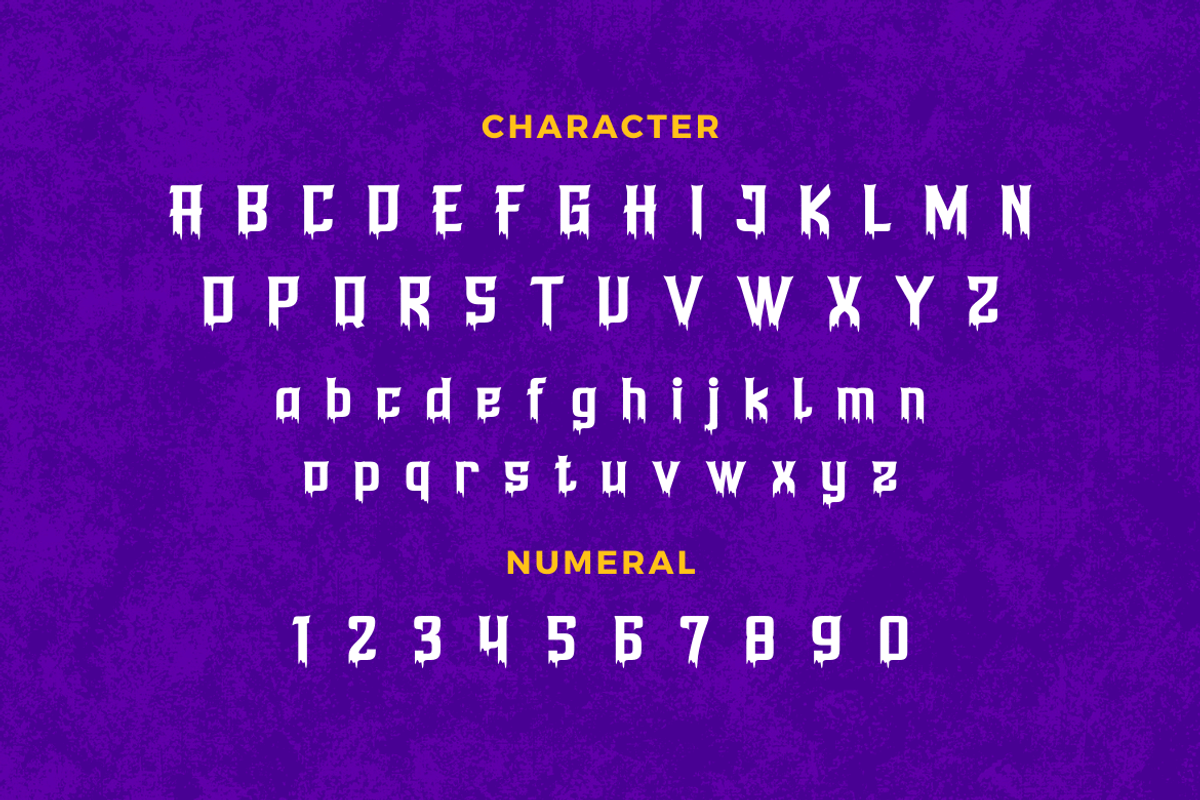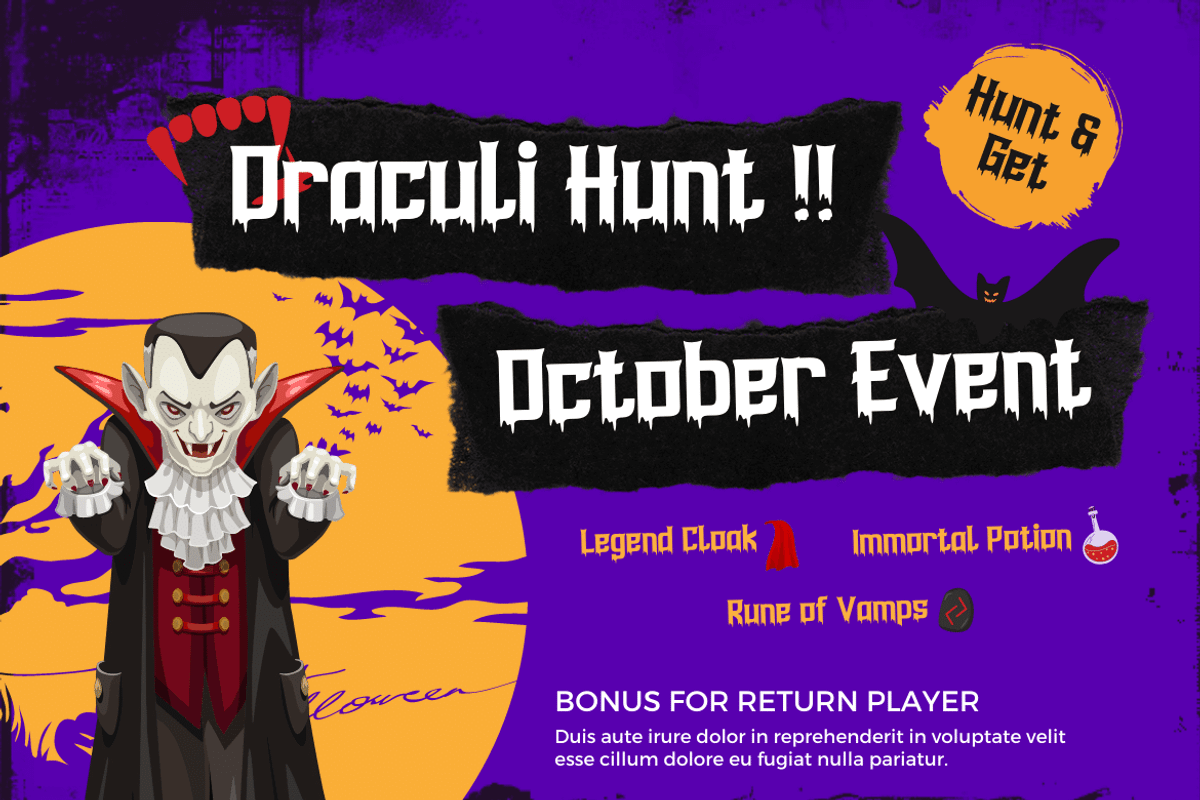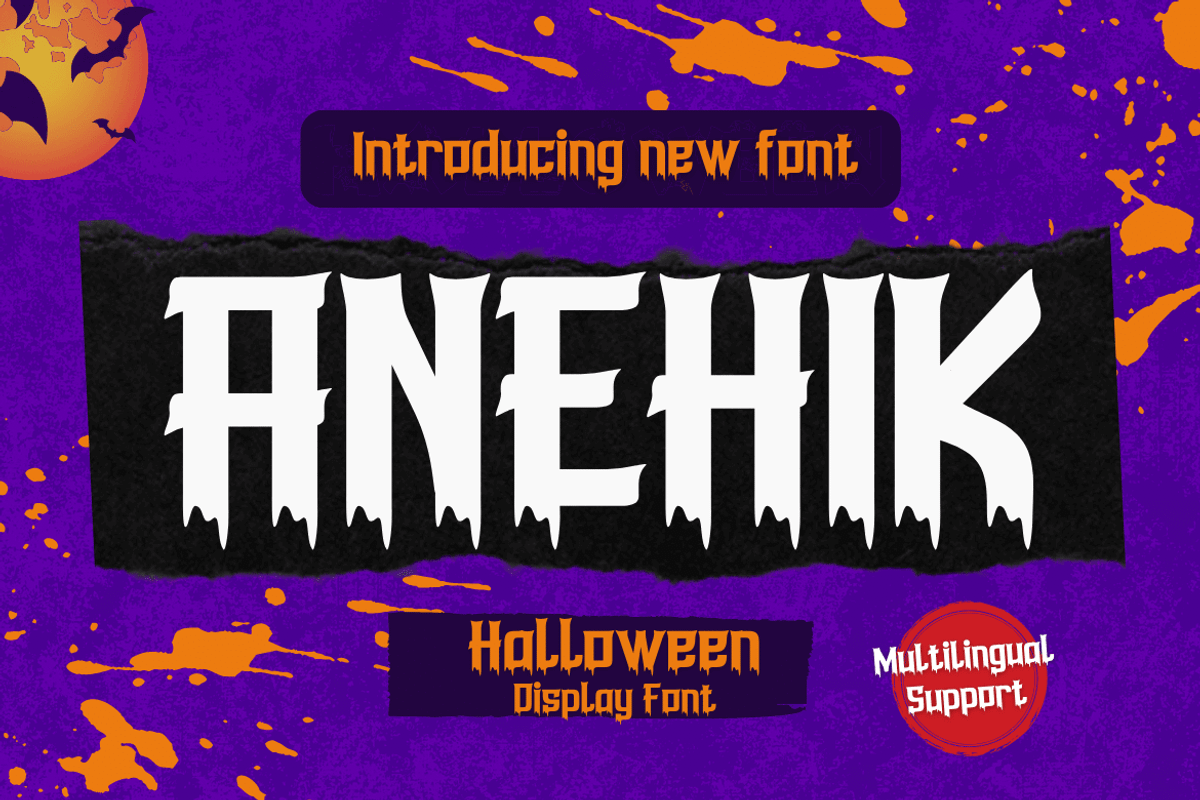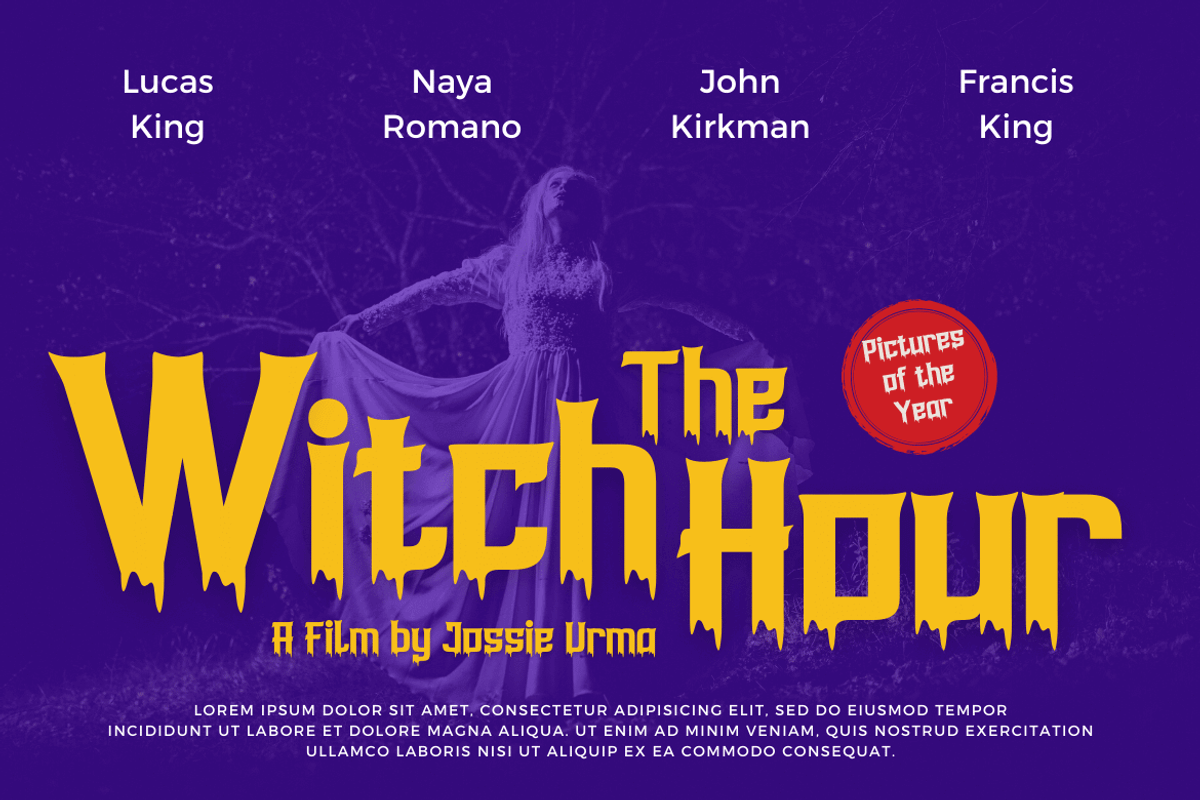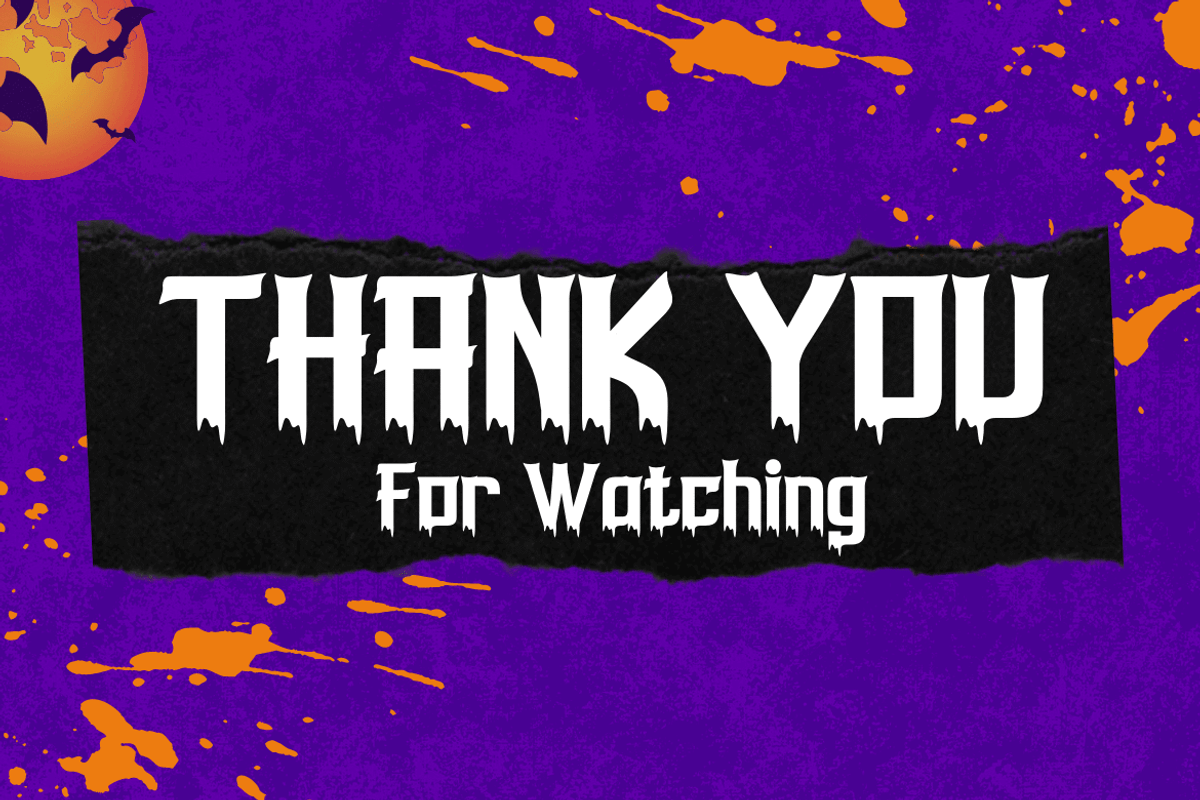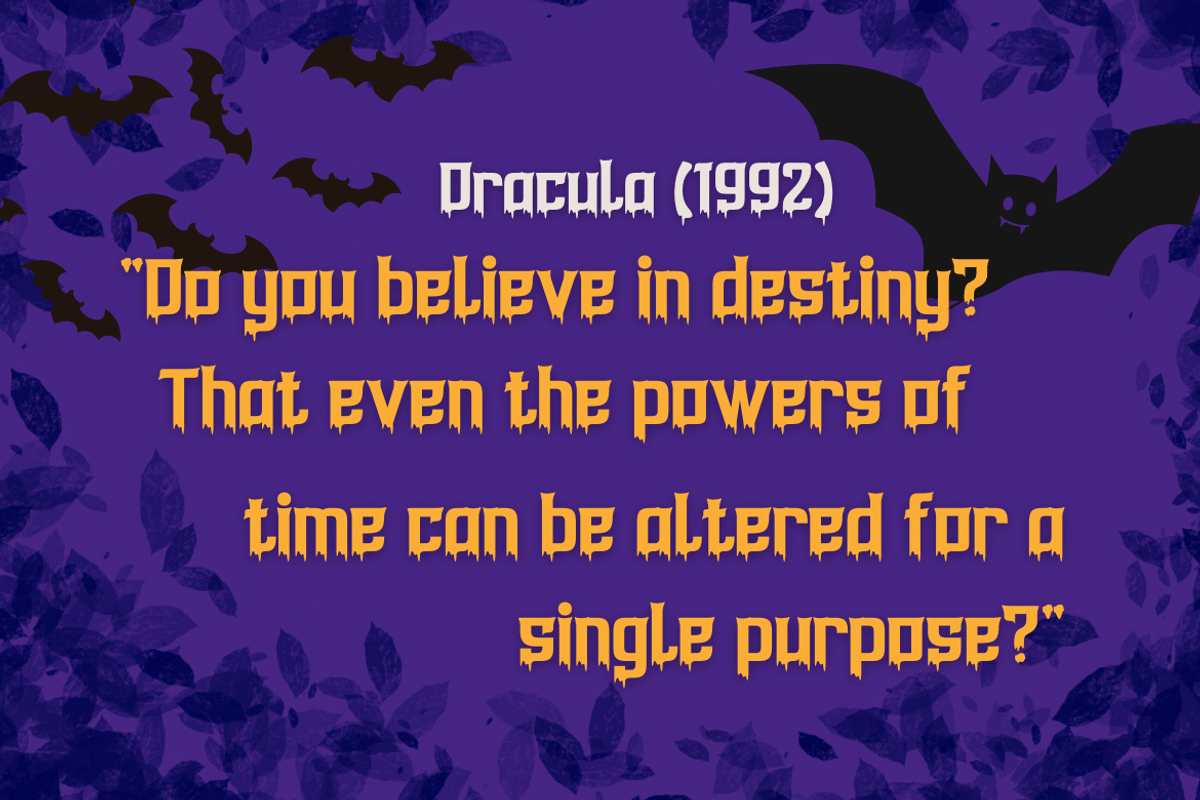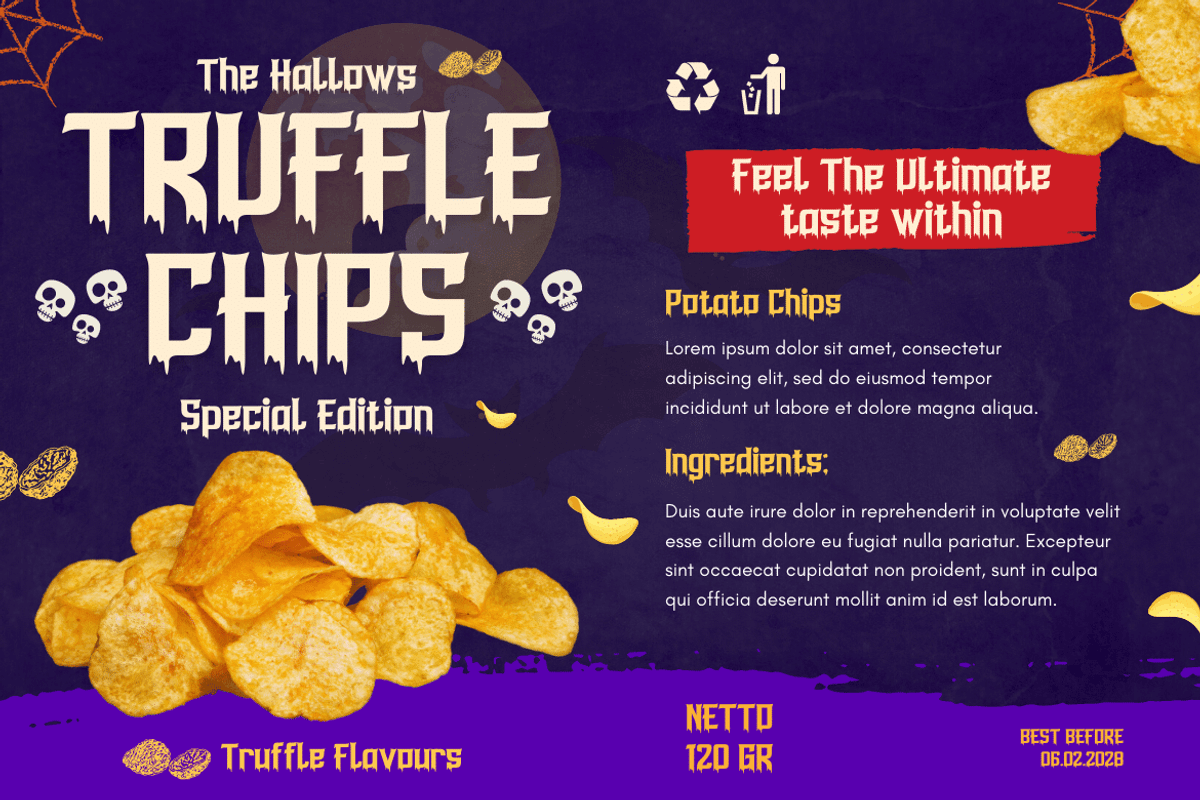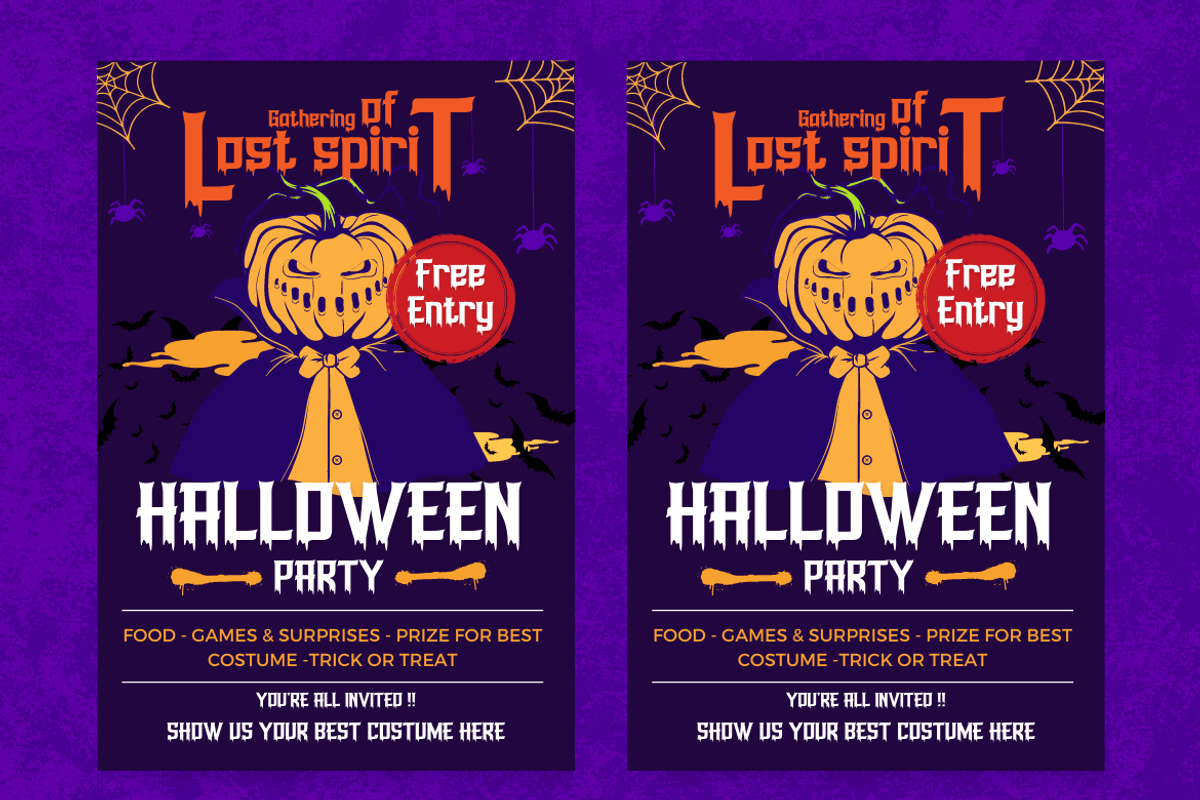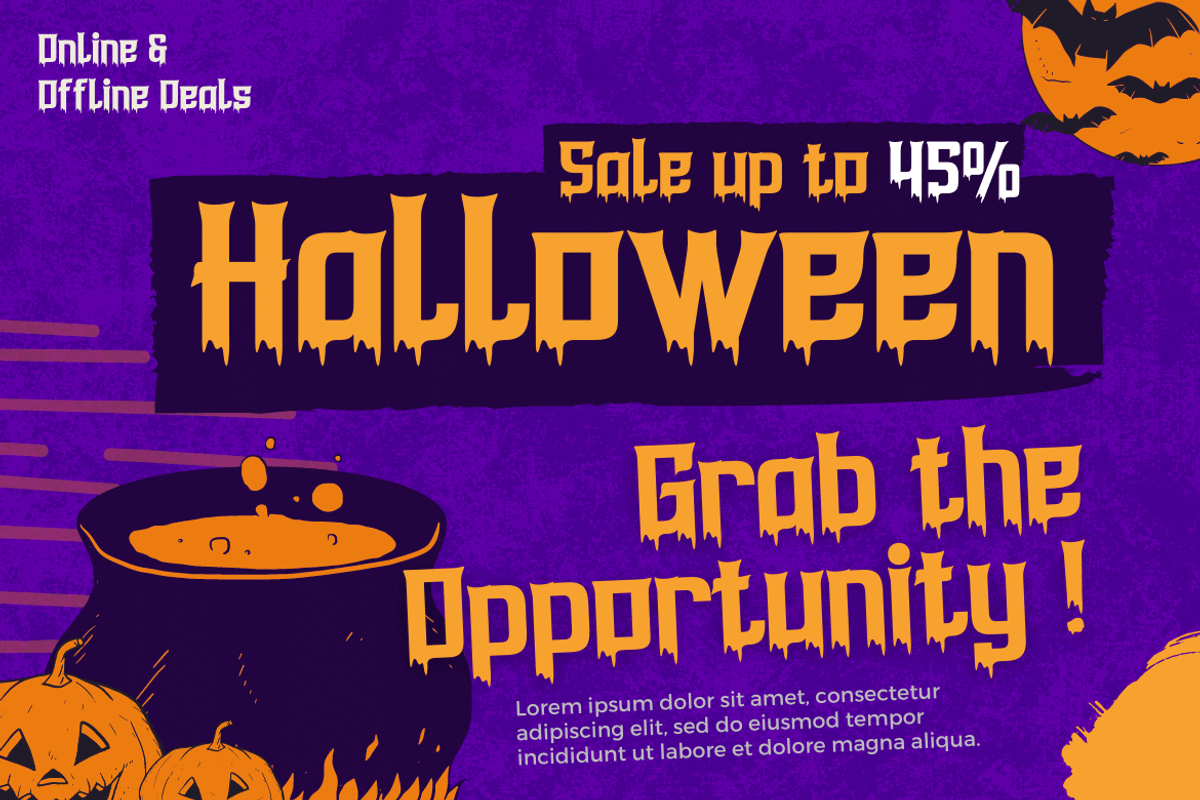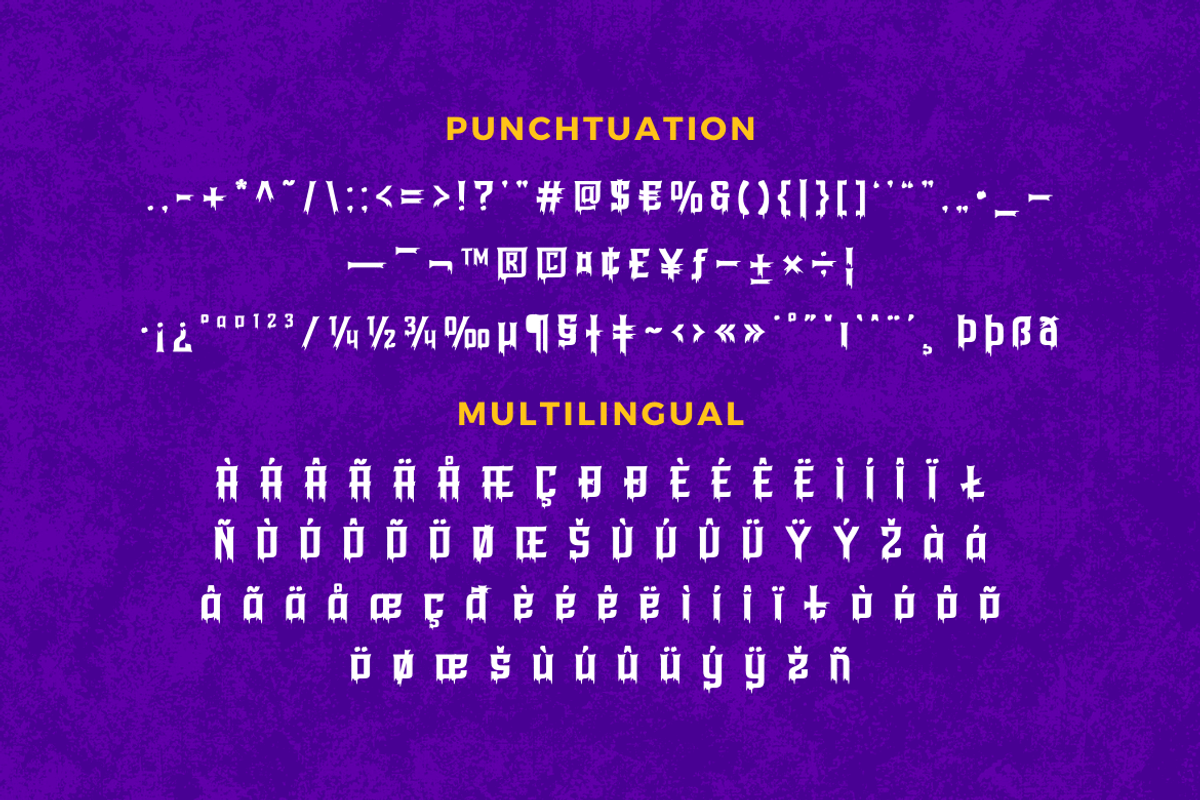
Anehik
Introducing our newest font Anehik. Halloween fonts are perfect for making Halloween parties fun and full of fun. It’s also the perfect addition to your next various designs, making it easy to make something you can use to make people smile at night.
Of course with this font your various design projects will be perfect and amazing, get a beautiful title and start using our font for your special project.